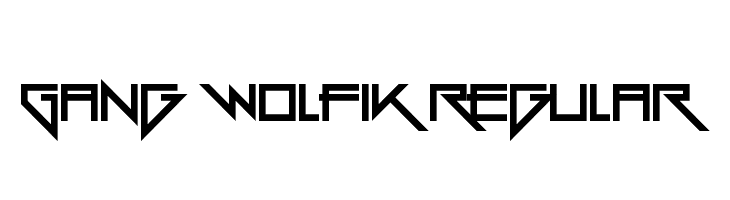
A clean, modern sans-serif font with balanced proportions and excellent readability.
A bold serif font with strong strokes and classic elegance.
A bold, italic serif font with classic elegance and strong visibility.
An elegant serif font with a classic italic style and refined serifs.
A classic serif typeface with elegant proportions and refined serifs.
A bold, geometric font with sharp angles and a futuristic style.
A bold, angular font with a futuristic, geometric style.
A bold, rounded font with a modern and playful style.
A bold, modern font with tall, narrow letterforms and high contrast.